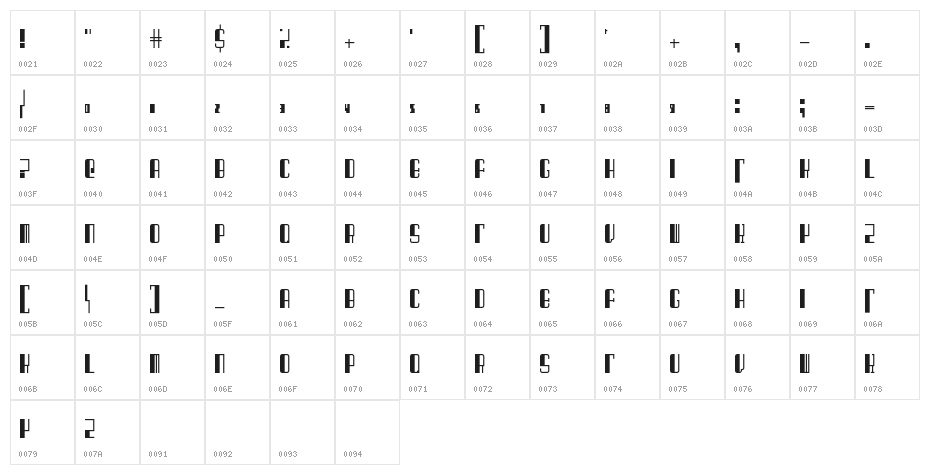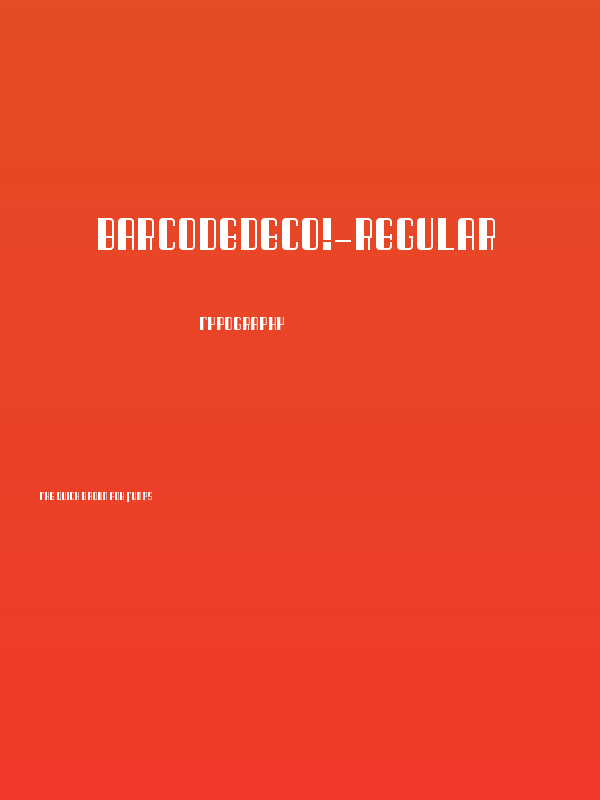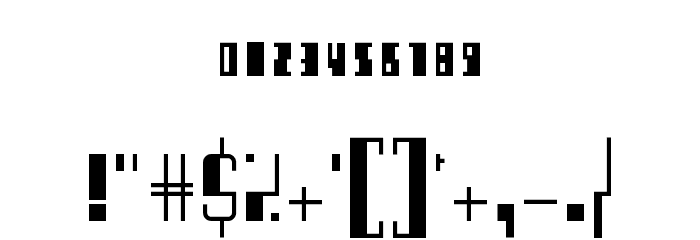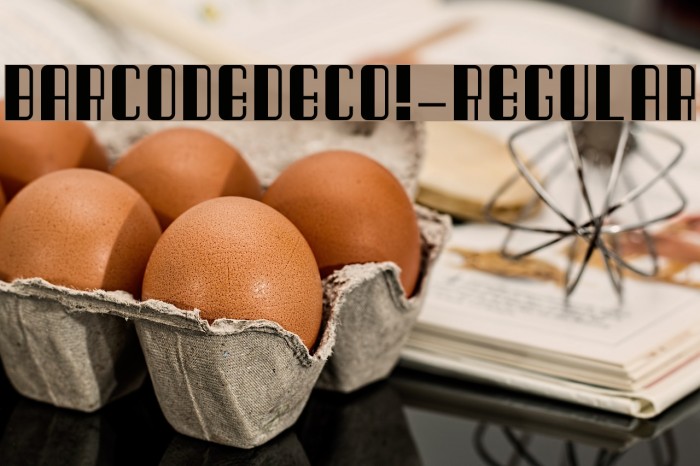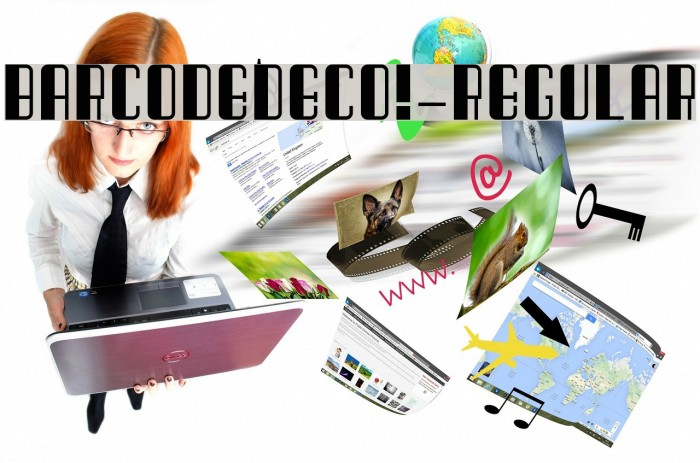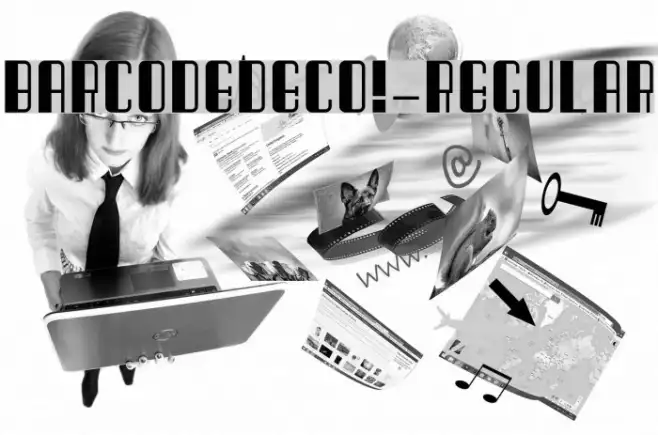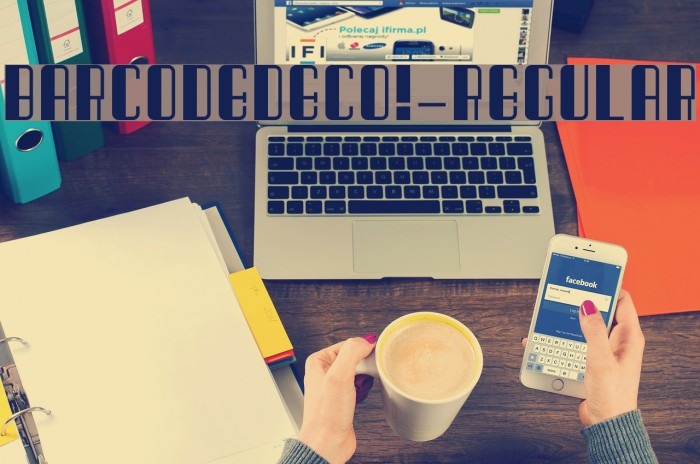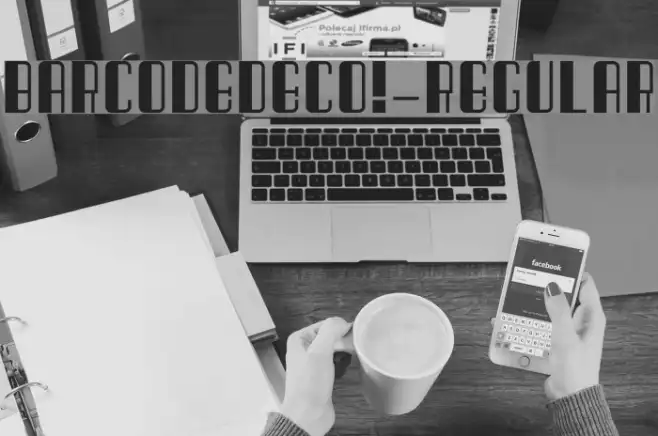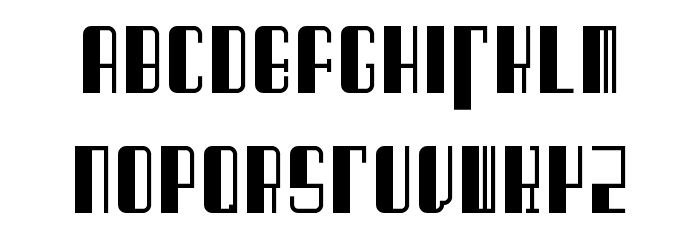
BarcodeDeco!-Regular Font
BarcodeDeco!-Regular Description
This font features a bold, geometric design with a distinct Art Deco influence. The characters are constructed with a combination of thick vertical lines and thinner horizontal elements, creating a striking contrast. The uppercase letters are particularly tall and narrow, giving a sense of elegance and sophistication. The lowercase letters maintain the same stylistic elements, ensuring consistency throughout. Numbers and special characters are designed with the same boldness and geometric precision, making them stand out. This font's unique style is ideal for creating eye-catching headlines and logos.